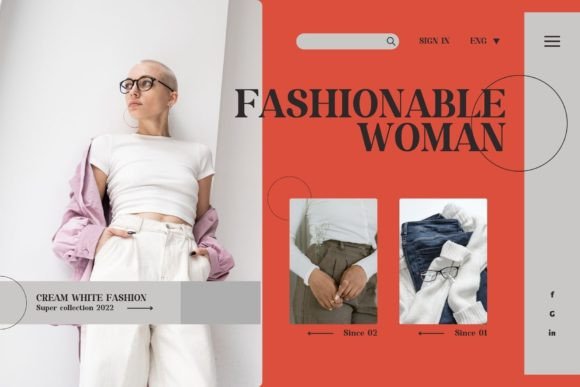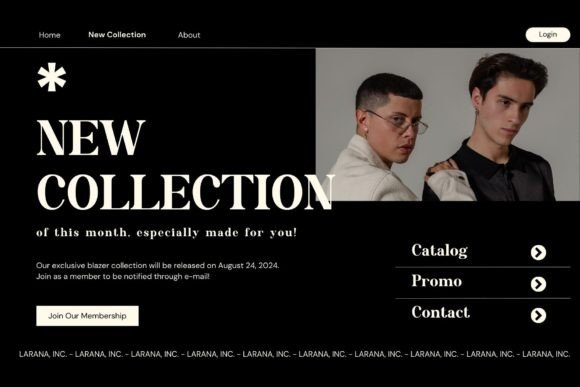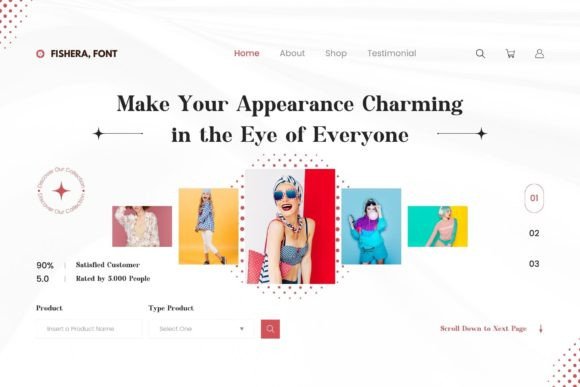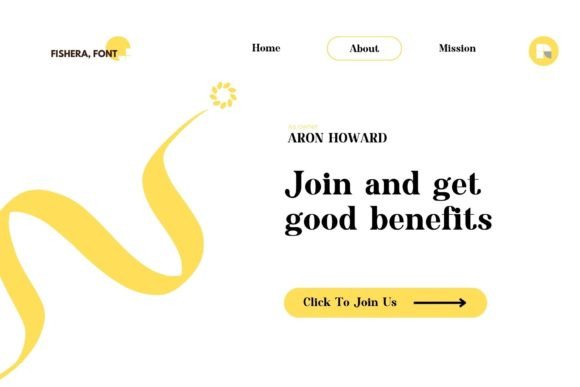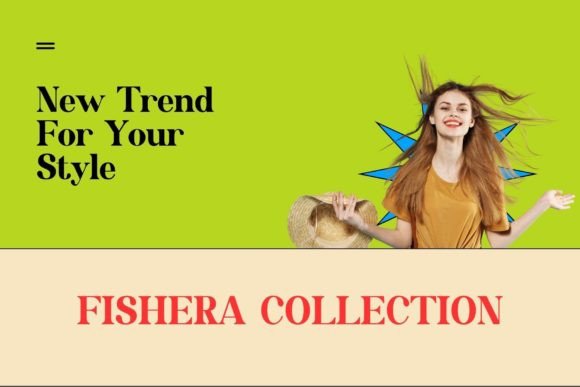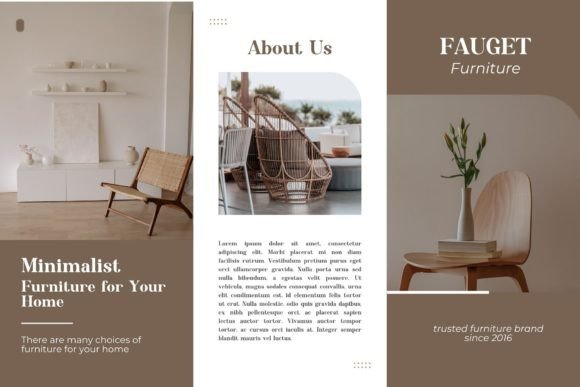
Fishera Font: Elevate Your Design with Modern Elegance
In the world of typography, a font can make all the difference in the aesthetic and tone of your design. For those seeking a modern and elegant touch, the Fishera Font is an exceptional choice. This beautiful series of letters is meticulously crafted to provide neat lettering that is both contemporary and pleasing to the eye.
The Essence of Fishera Font
The Fishera Font embodies a perfect blend of modernity and elegance. Its clean lines and well-defined letterforms make it an ideal choice for a wide range of design needs, from digital content creation to print materials. Whether you’re working on a branding project, crafting a website, or designing invitations, Fishera Font brings a touch of sophistication that elevates your work.
Key Features of Fishera Font
- Modern Impression: Fishera Font is designed with a modern aesthetic in mind, making it perfect for designers looking to infuse their projects with a contemporary feel.
- Elegant Appearance: Despite its modern edge, the font maintains an elegant look that suits a variety of applications, from formal to informal.
- Tidiness: The top priority in the creation of Fishera Font is the tidiness of each letter. This attention to detail ensures that the font is not only beautiful but also highly legible.
Uses of Fishera Font
The versatility of Fishera Font makes it suitable for a multitude of design projects. Here are some of the most popular applications:
- Branding and Logos: Create a lasting impression with a font that communicates modern elegance and sophistication.
- Web Design: Enhance your website’s typography with Fishera Font, providing visitors with a pleasant reading experience.
- Print Materials: From business cards to brochures, Fishera Font adds a touch of class to any print material.
- Social Media Graphics: Stand out on social media platforms with eye-catching graphics that incorporate Fishera Font.
- Invitations and Stationery: Add an elegant touch to your invitations, letters, and other stationery needs.
Why Choose Fishera Font?
In a sea of fonts, Fishera stands out for several reasons:
- Uniqueness: While many fonts strive for a modern look, Fishera Font achieves this with a unique twist that sets it apart from more generic options.
- Legibility: The careful design of each letter ensures that Fishera Font is not only beautiful but also easy to read, making it practical for a wide range of uses.
- Versatility: Whether your project demands a formal or casual tone, Fishera Font adapts seamlessly, making it a valuable addition to any designer’s toolkit.
Fishera Font offers a unique combination of modernity and elegance, making it an excellent choice for designers and crafters looking to elevate their projects. Its neat lettering, elegant appearance, and versatility ensure that it can be used across a variety of design needs. By choosing Fishera Font, you’re not just selecting a typeface; you’re embracing a design philosophy that prioritizes beauty, legibility, and impact. Whether you’re a professional designer or a crafting enthusiast, Fishera Font is sure to inspire your creativity and enhance your designs.
Embrace the elegance and modernity of Fishera Font in your designs. With its beautiful series of letters and neat lettering, Fishera Font is poised to become your go-to choice for projects that demand a touch of sophistication and a modern edge.